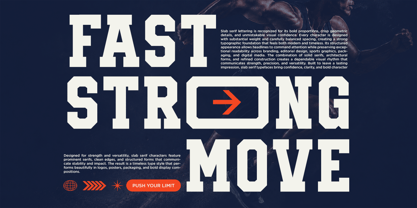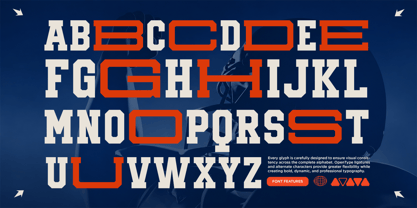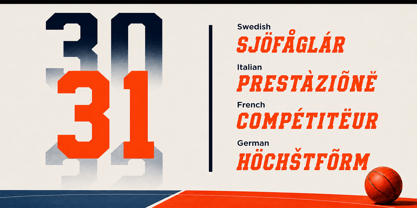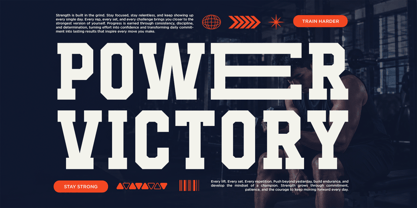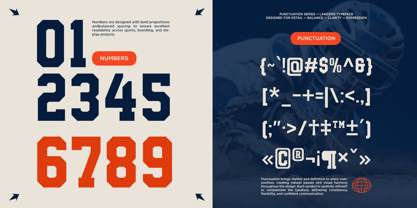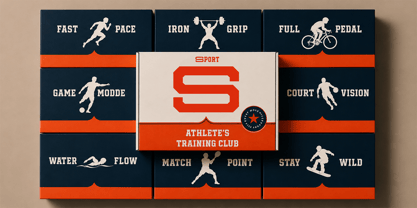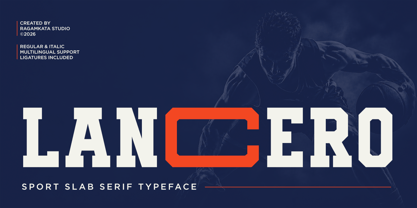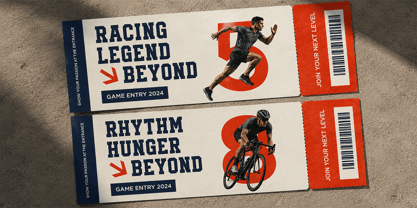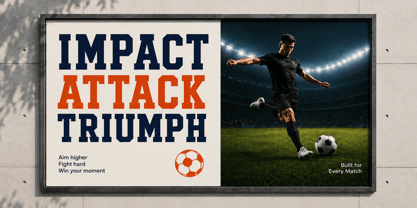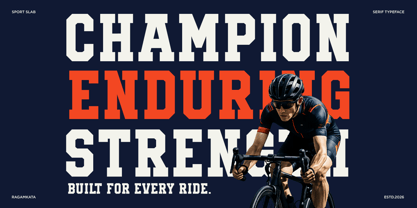
Lancero
Die Schriftfamilie Lancero wurde von Yogiswhara Dio Prakoso Riadi entworfen und von RagamKata veröffentlicht. Lancero enthält 2 Stile und Familienpaketoptionen. Mehr über diese Familie
Lancero is sports slab serif font is a bold and powerful slab serif display font designed to bring an athletic, competitive, and energetic character to your designs. With its strong serifs, sturdy proportions, and distinctive sports-inspired appearance, Lancero is perfect for headlines, sports branding, team identities, jerseys, posters, racing graphics, badges, logos, packaging, and editorial layouts.
Its bold display style works especially well for football, soccer, basketball, baseball, cycling, racing, fitness, and outdoor sports projects. Lancero combines a classic athletic aesthetic with a modern graphic presence, making it a versatile choice for impactful headlines and strong visual identities.
• Regular and Italic
• Ultrawide Alternates
• Uppercase and Lowercase
• Number, Symbol, and Punctuation
• Multilungual Support